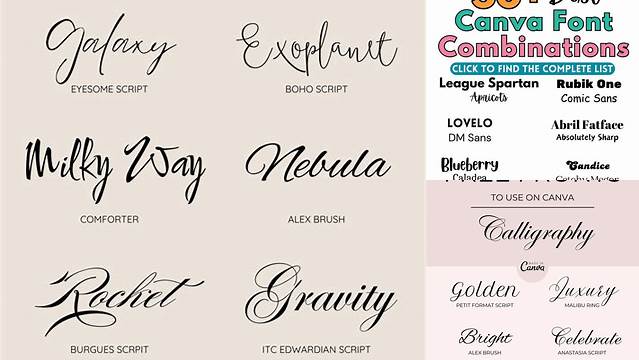
Free Fonts For Canva: Download & Design Guide
Hey guys! Are you ready to spice up your Canva designs with some awesome fonts? Let's dive into the world of free fonts for Canva download, where you can unlock a treasure trove of typography to make your projects pop. Canva itself offers a bunch of fonts, but sometimes, you just need that extra something, right? That's where downloading and adding your own fonts comes in. I will guide you through the best fonts and how to get them, making sure your designs stand out from the crowd.
Why You Need Free Fonts for Canva
So, why bother with free fonts for Canva? Well, think about it: the right font can totally change the vibe of your design. It's like choosing the perfect outfit – it sets the tone, grabs attention, and tells a story. Using unique fonts helps you: * Boost Branding: Custom fonts make your brand recognizable and memorable. * Enhance Creativity: Access to a wider variety sparks new ideas. * Professionalism: Using the right fonts gives your designs a polished look. * Stand Out: Avoid the generic look and make your work unique.
Imagine creating a poster or social media post. You want it to look cool, right? The font you choose plays a huge role. A playful font might be perfect for a kids' event, while a sleek, modern font works wonders for a tech startup. Plus, with free fonts, you don't have to break the bank to get amazing typography. It's all about expressing your creativity and making your designs look as good as possible without spending a fortune. Using different fonts helps keep your designs interesting and professional. Finding the right fonts will make your content more appealing.
Let's be real, using default fonts all the time gets boring. Downloading and using free fonts gives you endless possibilities. Whether you are creating logos, presentations, or social media graphics, the perfect font is out there, waiting to be discovered. Remember, the best font will depend on the style and goal of your design, so experiment and enjoy!
Top Websites for Free Canva Fonts
Alright, let's get to the good stuff! Where do you find these magical free fonts for Canva download? Here are some of the top websites that are absolute goldmines for typography:
- Google Fonts: This is your first stop, guys! Google Fonts is a massive library of free, open-source fonts. You can download them, use them on your computer, and upload them to Canva. The best part? They're all free for commercial and personal use. Google Fonts is super easy to use and offers a wide variety of styles. The website lets you browse fonts by category, language, and even font properties like thickness and width. It is a great way to ensure you find fonts that match your design needs.
- Font Squirrel: Font Squirrel is another fantastic resource, offering high-quality, free fonts. They have a carefully curated selection and, unlike some sites, they verify their licenses, making it safe for commercial projects. The website has a user-friendly interface and a range of options. Each font also includes licensing information, so you always know how you can use them.
- DaFont: DaFont is like a treasure chest full of fonts! It has a massive collection, though you should always double-check the license for each font to make sure it's okay for your project. You will find tons of styles, from basic to super creative. Many designers start here due to the variety. Also, it has a simple and effective interface. You can easily browse fonts by category or search for a specific style. Just a tip: Always read the license details for commercial use!
- BeFonts: BeFonts is a cool site where you can find lots of free fonts. They keep their font selection updated and they provide direct download links. BeFonts offers a lot of high-quality choices. They organize their fonts well, making it easier to find exactly what you need. Always remember to check each font's license before using it, especially for commercial projects. This site can be a great option if you are looking for diverse and modern fonts.
- 1001 Free Fonts: As the name suggests, 1001 Free Fonts has a vast selection of fonts. The site has a user-friendly design, so you can easily search and download fonts. They have a wide array of font styles, so you are bound to find something that will fit your project. Always make sure to check the licensing agreements before you start using any font.
These websites are your go-to resources for finding amazing free fonts for Canva. Just be sure to review the licenses for each font, especially if you're using them for commercial projects. The goal is to find fonts that make your design unique and add flair.
How to Download and Upload Fonts to Canva
Okay, you've found some killer free fonts for Canva download, now what? Here's a step-by-step guide on how to download and upload them to Canva. It is super simple, I promise!
Step 1: Download Your Fonts. Go to your favorite font website (Google Fonts, Font Squirrel, etc.) and find the fonts you love. Click the download button and save the font file to your computer. Usually, fonts come in a ZIP file, so you'll need to unzip it to access the font files (usually .ttf or .otf files).